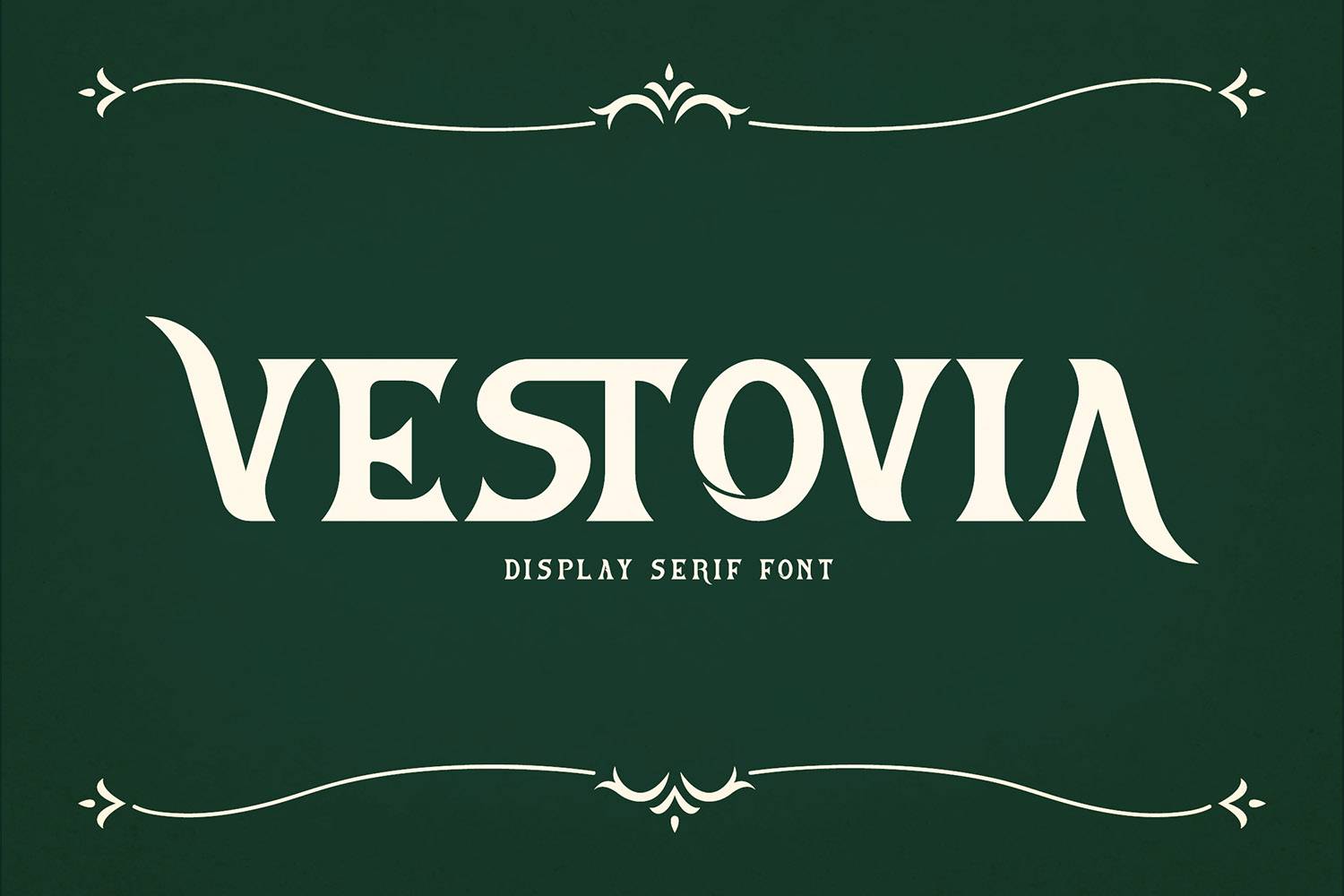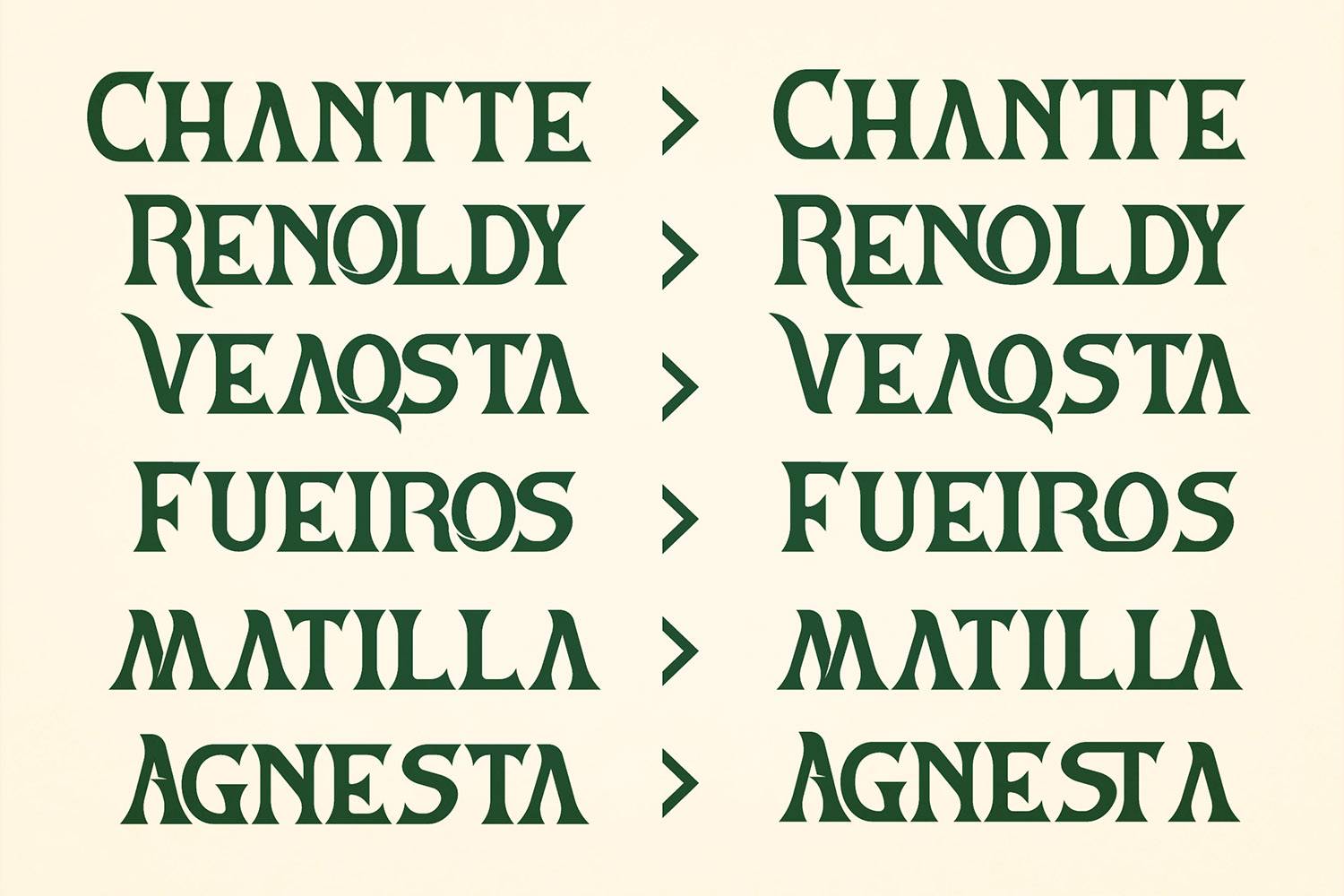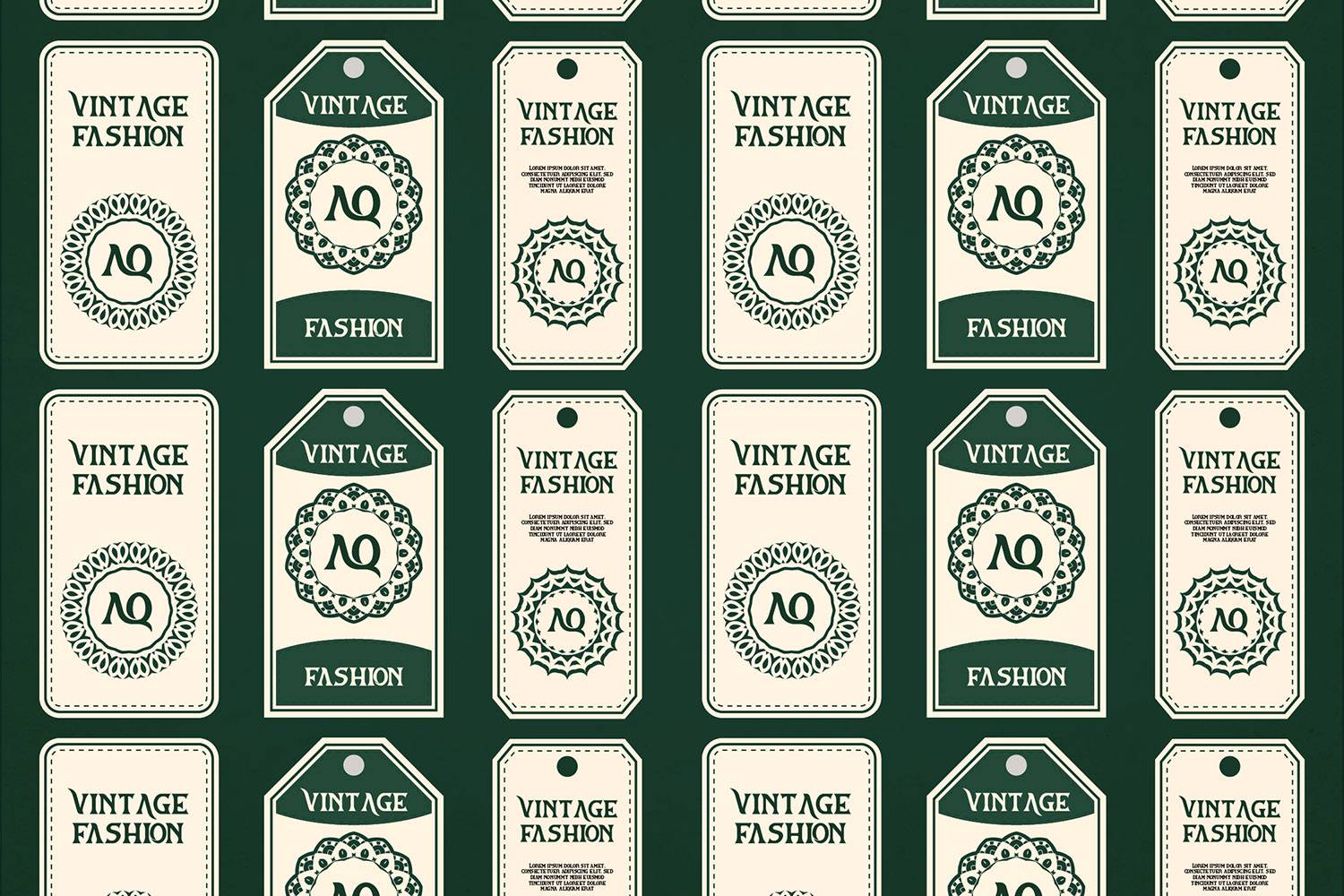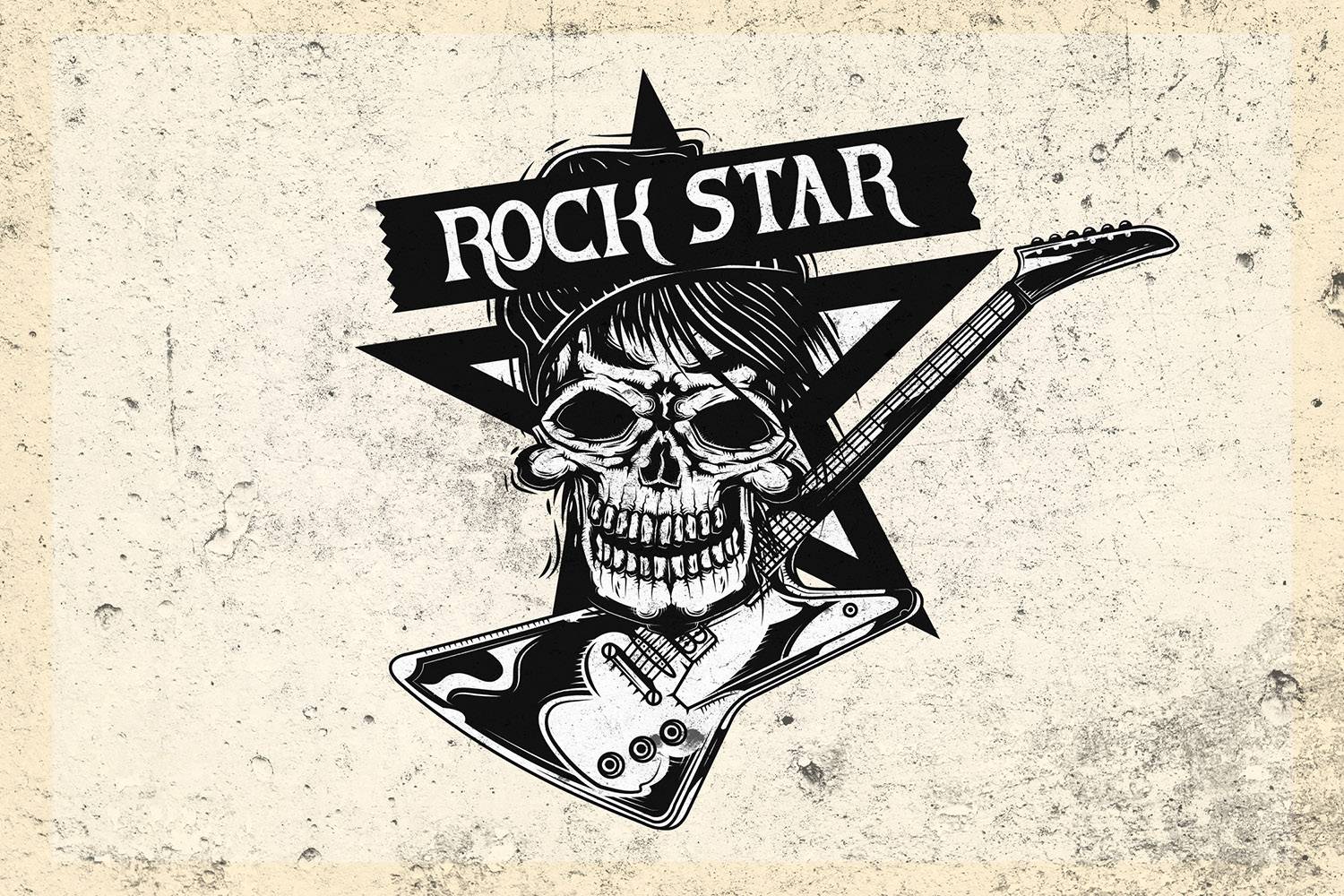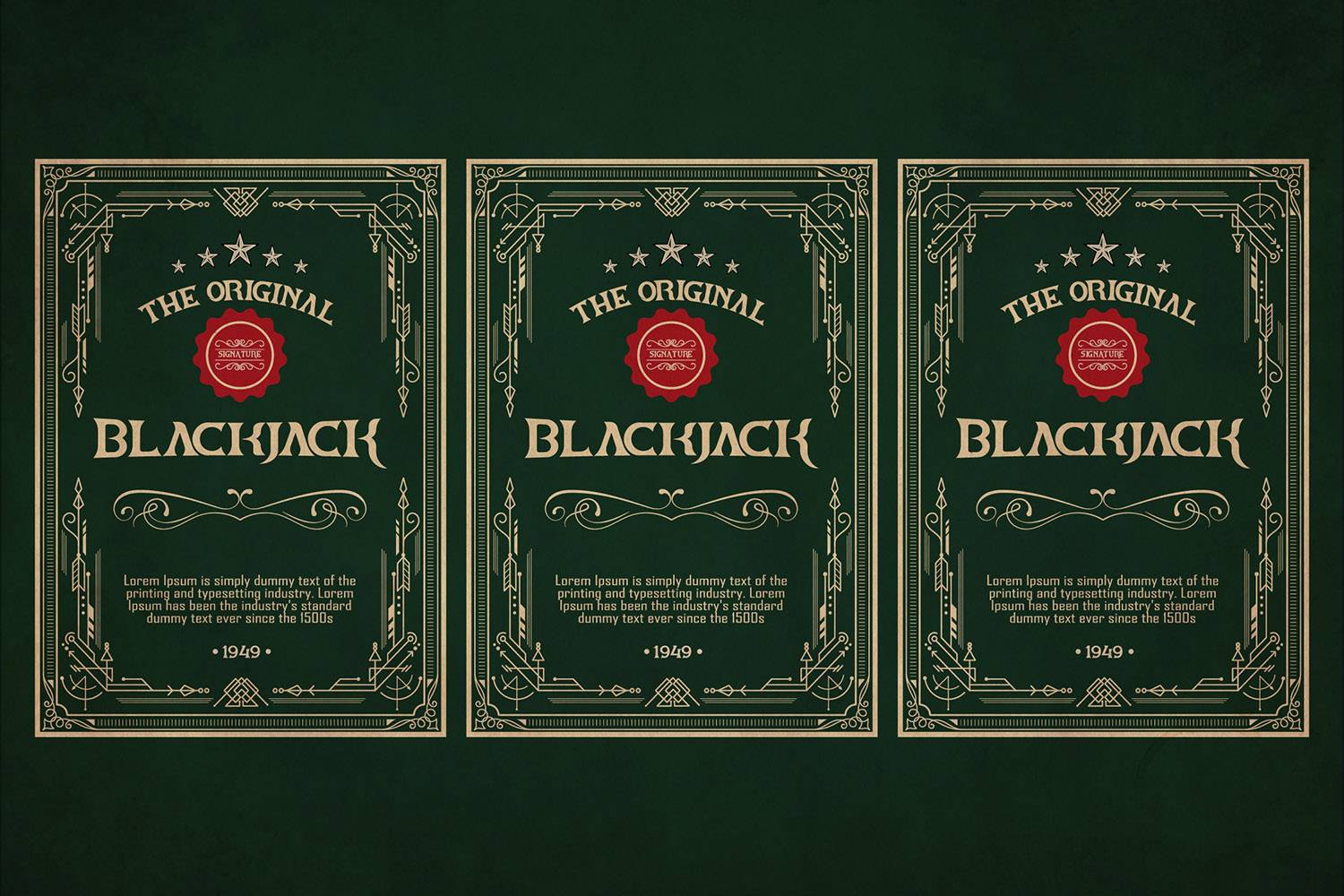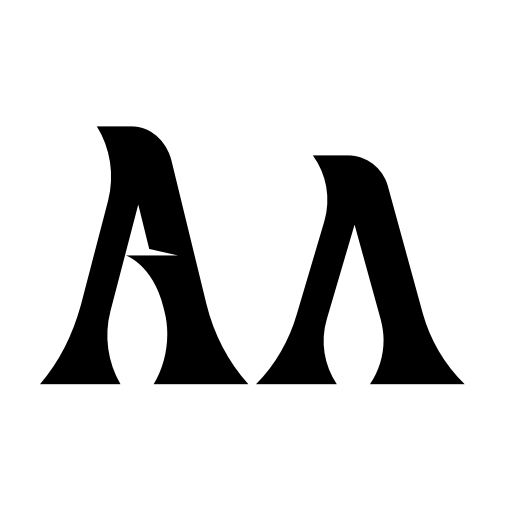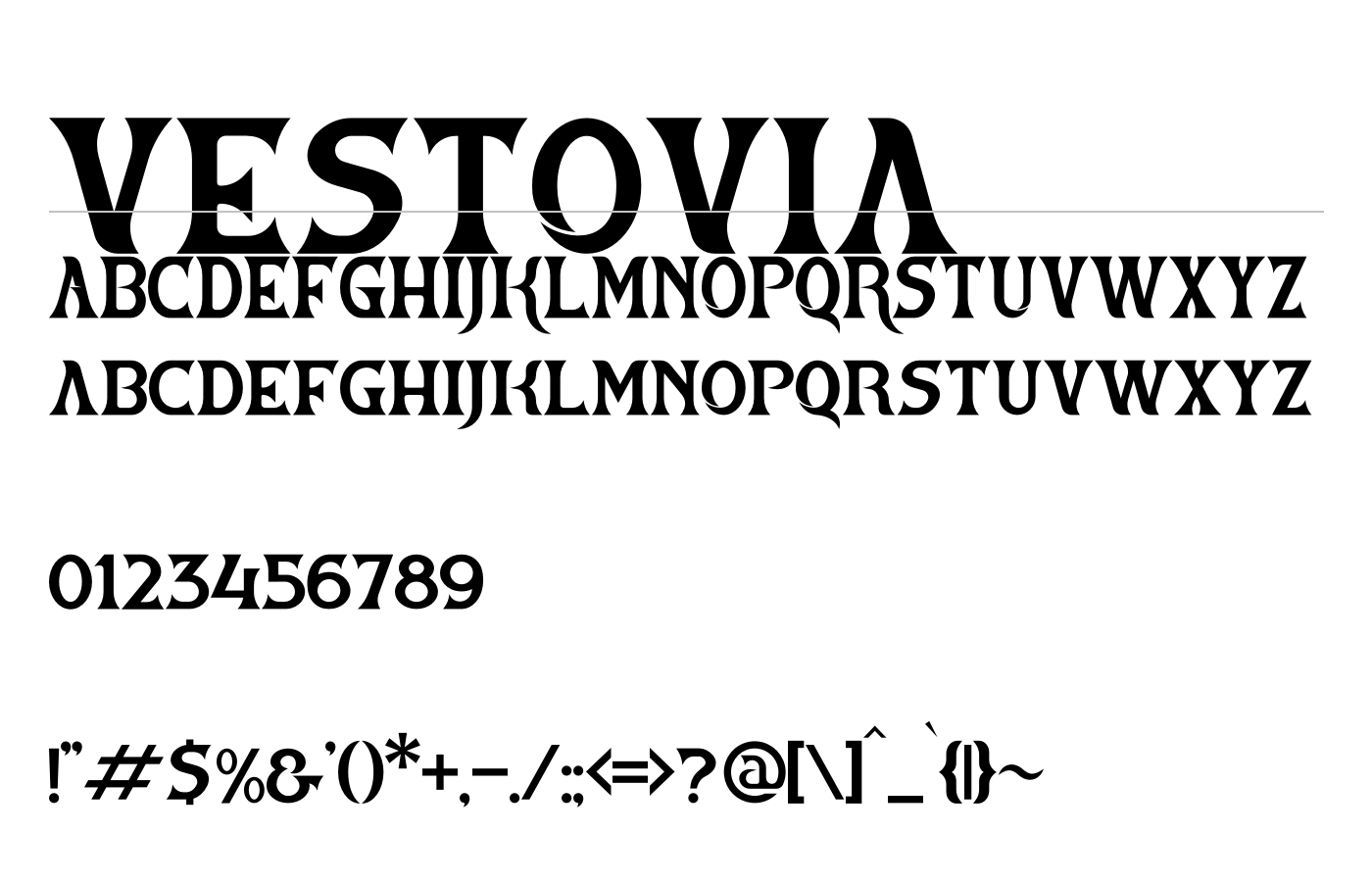
Vestovia is a bold serif typeface with a striking blend of classic and contemporary design elements. Its high contrast strokes and sharp, bracketed serifs give it an elegant yet strong personality, ideal for making a statement in headlines, logos, and luxury branding. The font’s unique letterforms and carefully balanced spacing make it perfect for stylish editorial use and sophisticated packaging where a refined, memorable impression is desired.
Vestovia Font
About Vestovia Font